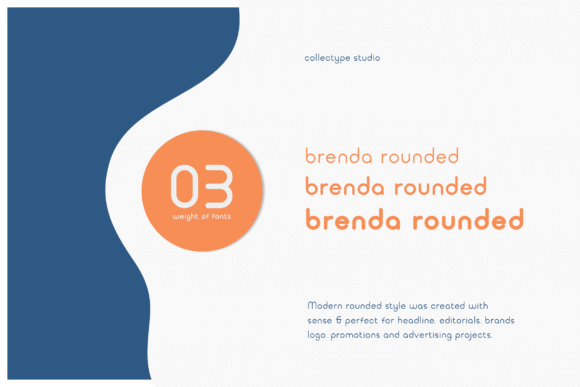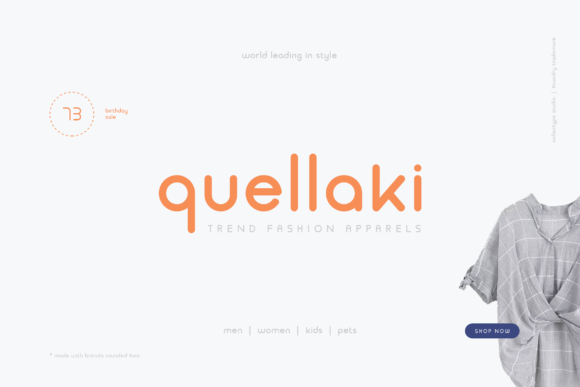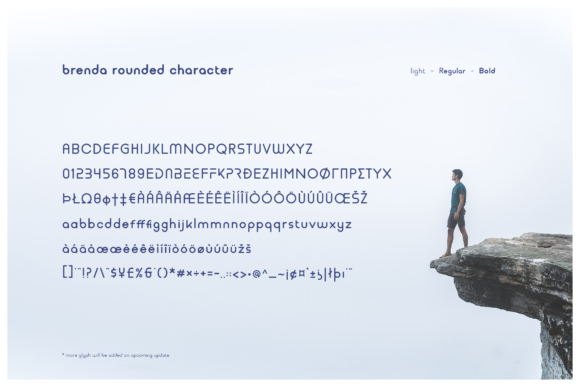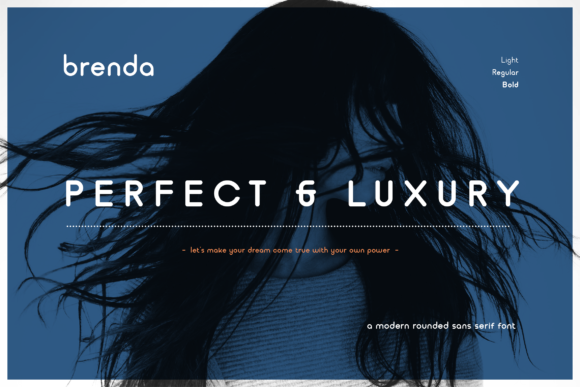
Discover the Charm of Brenda Rounded Font: A Modern Sans Serif for Every Project
In the world of typography, fonts play a crucial role in conveying messages, setting tones, and creating visual identities. Among the myriad of fonts available, Brenda Rounded stands out as a modern sans serif that has been carefully handcrafted to become a true favorite among designers and crafters. Its unique blend of casual charm and versatility makes it an excellent choice for a wide range of projects, from digital designs to print materials.
The Characteristics of Brenda Rounded
Brenda Rounded is designed with a focus on readability and approachability. Its rounded edges give it a soft, friendly appearance that can instantly make any text feel more approachable and engaging. This font is not just about aesthetics; it’s also highly functional. Its clear and clean lines ensure that it remains readable even in smaller sizes, making it perfect for body text or for use on busy backgrounds.
One of the standout features of Brenda Rounded is its incredible versatility. Whether you’re working on a project that requires a professional tone or something more playful and casual, this font adapts beautifully. It’s suitable for a variety of contexts, from headlines and titles to longer blocks of text. Its down-to-earth feel makes it an excellent choice for brands looking to connect with their audience on a more personal level.
Using Brenda Rounded in Design Projects
Brenda Rounded’s design ensures that it stands out in any context. When used as a headline, it grabs attention with its bold and inviting appearance. For body text, its readability and flow make reading effortless for the audience. This font is particularly effective in digital designs, such as website content, social media posts, and mobile app interfaces, where readability on various screen sizes is crucial.
For crafters and DIY project enthusiasts, Brenda Rounded can add a personal touch to handmade cards, scrapbooking, and other craft projects. Its modern yet approachable feel can elevate the aesthetic of any DIY project, making it more visually appealing.
Why Choose Brenda Rounded?
- Versatility: Suitable for a wide range of projects, from digital to print.
- Readability: Clear and clean lines make it easy to read in various sizes.
- Aesthetic Appeal: Rounded edges give it a friendly and approachable look.
- Professional and Casual: Can be used for both professional projects and more casual, personal endeavors.
Tips for Maximizing Brenda Rounded’s Potential
To make the most out of Brenda Rounded, consider the following tips:
- Mix and Match: Combine Brenda Rounded with other fonts to create visual interest. Its versatility allows it to pair well with a variety of typefaces.
- Adjust Size and Weight: Experiment with different sizes and weights of Brenda Rounded to create hierarchy and emphasis in your design.
- Consider Color: Choose colors that complement the tone you’re aiming for, whether it’s bold and vibrant or soft and pastel.
Brenda Rounded is more than just a font; it’s a design tool that can elevate your projects with its modern sans serif look, casual charm, and incredible versatility. Whether you’re a designer looking for a reliable font for client projects or a crafter seeking to add a professional touch to your DIY endeavors, Brenda Rounded is an excellent choice. Its ability to convey a down-to-earth feel while remaining readable and engaging makes it a valuable asset in any designer’s or crafter’s toolkit.
With Brenda Rounded, you can create designs that are not only visually appealing but also highly effective in communicating your message. So, why settle for ordinary when you can make your projects stand out with the unique charm of Brenda Rounded?